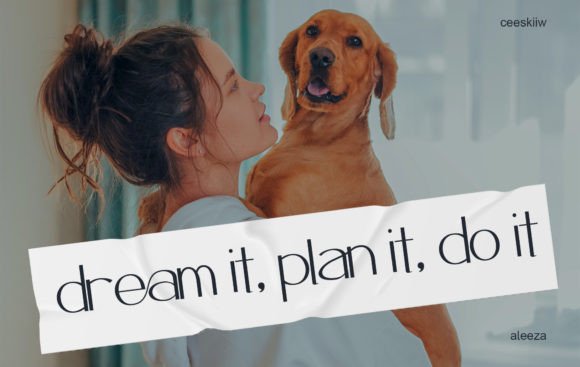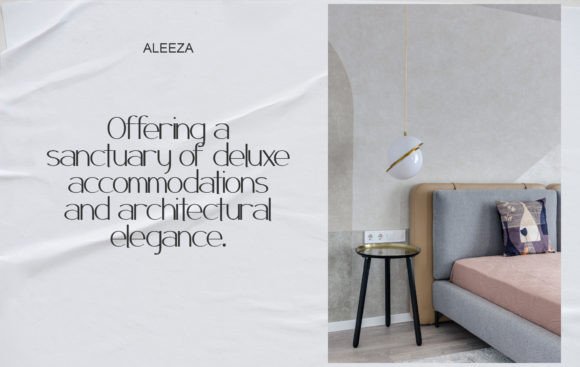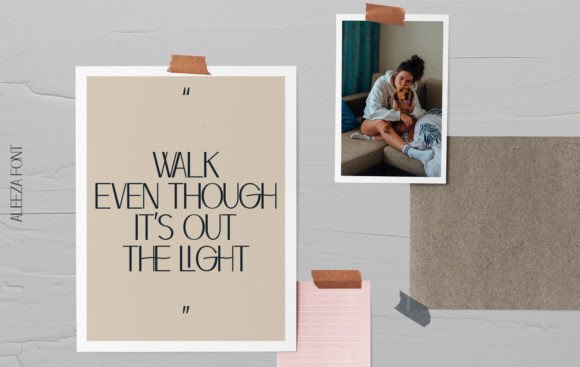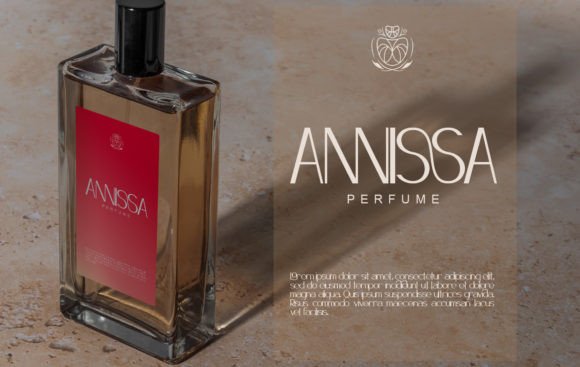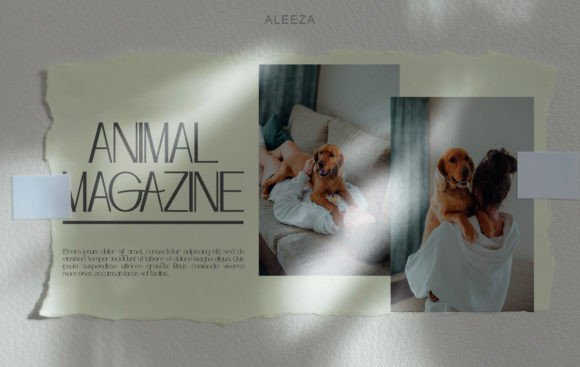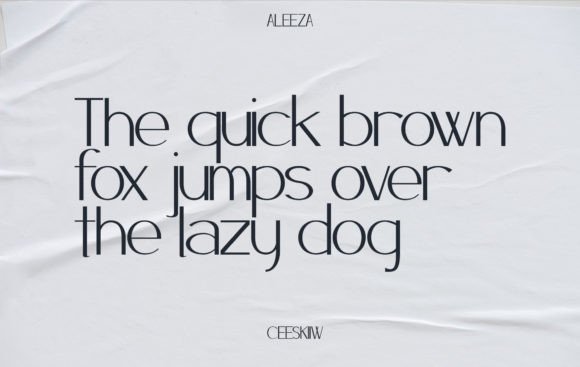
Aleeza Font: Elevate Your Designs with Elegance and Style
Are you looking for a font that can add a touch of luxury and sophistication to your projects? Look no further than Aleeza, a stunning new elegant sans serif font that’s perfect for designers and crafters alike. In this article, we’ll dive into the features and benefits of Aleeza, and explore how it can elevate your designs to the next level.
Introducing Aleeza: A Font of Distinction
Aleeza is a beautifully crafted sans serif font that’s designed to bring a sense of elegance and style to your projects. With its clean lines, precise curves, and luxurious feel, Aleeza is the perfect match for a wide range of design applications, from logotypes and branding to wedding monograms and invitations, blog headlines, and more.
Key Features of Aleeza Font
- Elegant Sans Serif Design: Aleeza boasts a sleek and modern sans serif design that’s perfect for creating sophisticated and stylish text.
- Luxurious Feel: With its precise curves and clean lines, Aleeza exudes a sense of luxury and high-end quality that’s perfect for high-end branding and design projects.
- Versatile: Aleeza is a versatile font that can be used for a wide range of design applications, from digital projects to print materials.
- Easy to Read: Aleeza is designed to be easy to read, making it perfect for body text, headlines, and titles.
Aleeza is a font that’s specifically designed with designers and crafters in mind. Whether you’re creating bespoke wedding invitations, designing a luxury brand identity, or crafting beautiful blog headlines, Aleeza has the perfect combination of style, elegance, and versatility to bring your vision to life.
Use Cases for Aleeza Font
- Logotypes and Branding: Aleeza is perfect for creating stunning logotypes and branding materials that exude luxury and sophistication.
- Wedding Monograms and Invitations: Add a touch of elegance to your wedding designs with Aleeza’s beautiful sans serif curves and lines.
- Blog Headlines and Titles: Use Aleeza to create stunning blog headlines and titles that grab attention and elevate your content.
- Print Materials: Aleeza is perfect for a wide range of print materials, from business cards to brochures and more.
Get Inspired with Aleeza
To get a true sense of the beauty and versatility of Aleeza, be sure to flip through all the previews and explore the many different ways you can use this stunning font. From elegant wedding designs to sophisticated branding materials, Aleeza is the perfect choice for designers and crafters who want to create something truly special.
In conclusion, Aleeza is a game-changing font that’s sure to elevate your designs to the next level. With its elegant sans serif design, luxurious feel, and versatility, Aleeza is the perfect choice for designers and crafters who want to add a touch of style and sophistication to their projects. So why wait? Get inspired with Aleeza today and discover a world of limitless design possibilities!